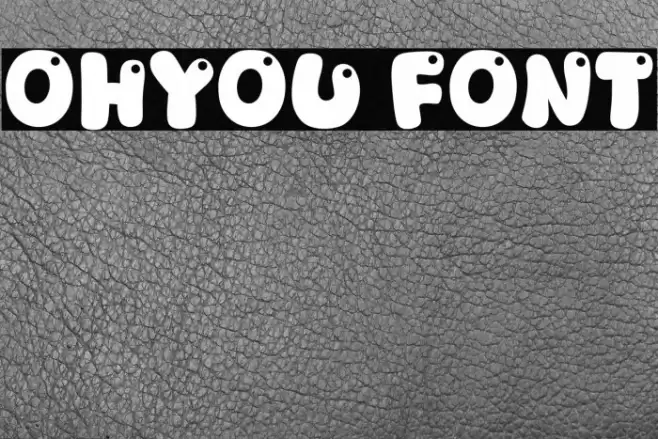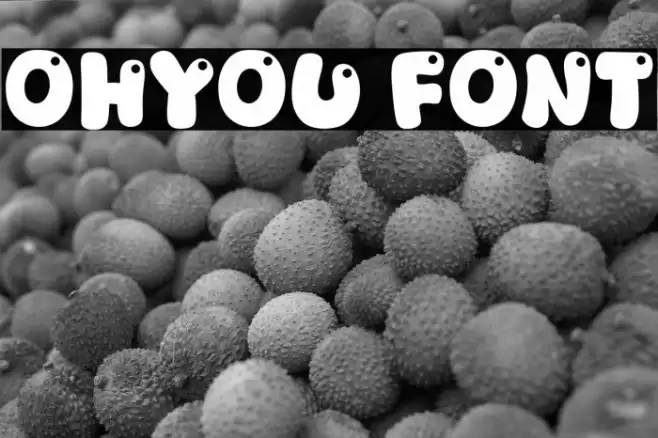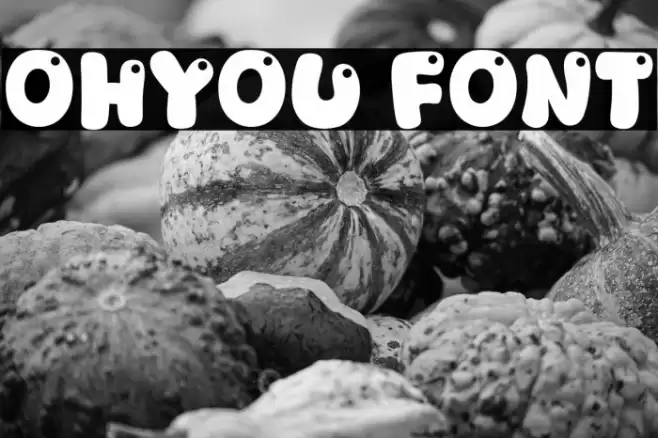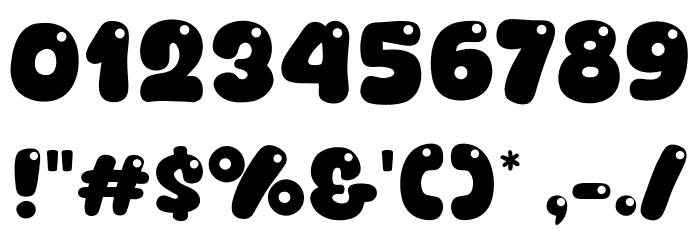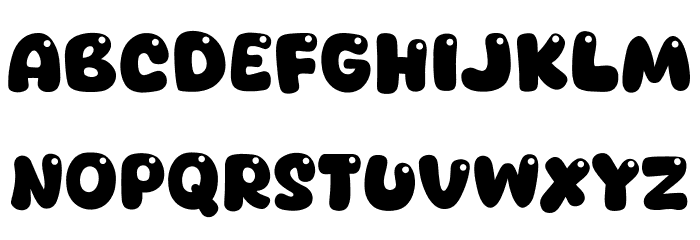
Ohyou Font
Ohyou Description
This playful and bold font features a unique, bubbly design with rounded edges and a whimsical touch. Each character is crafted with a thick, uniform stroke that gives it a strong presence, while the rounded forms add a sense of fun and friendliness. The font includes both uppercase and lowercase letters, numerals, and a variety of special characters, all maintaining the same playful style. The characters are well-spaced, ensuring readability while still conveying a sense of movement and energy. This font is perfect for projects that require a lighthearted and approachable aesthetic.
A playful, bold font with rounded, bubbly characters from Uncategorized fonts.
- Font: Ohyou
- Proposed Projects: Ideal for children's books, playful branding, party invitations, and creative posters.
- Overall Style: Playful, Whimsical